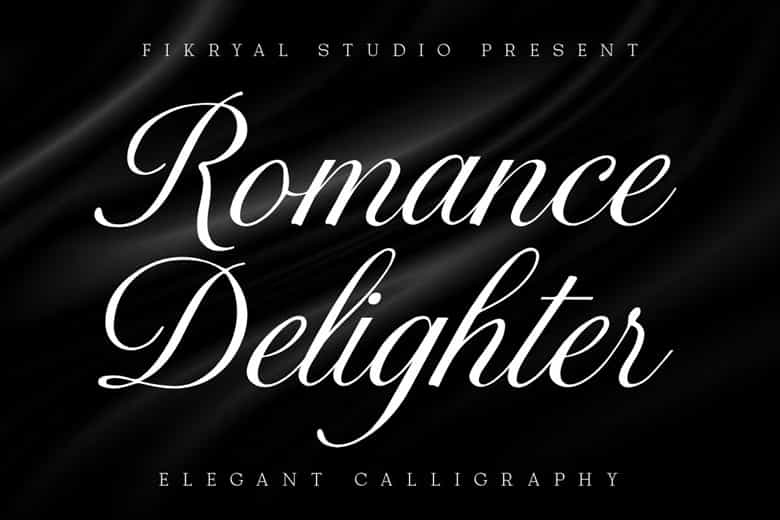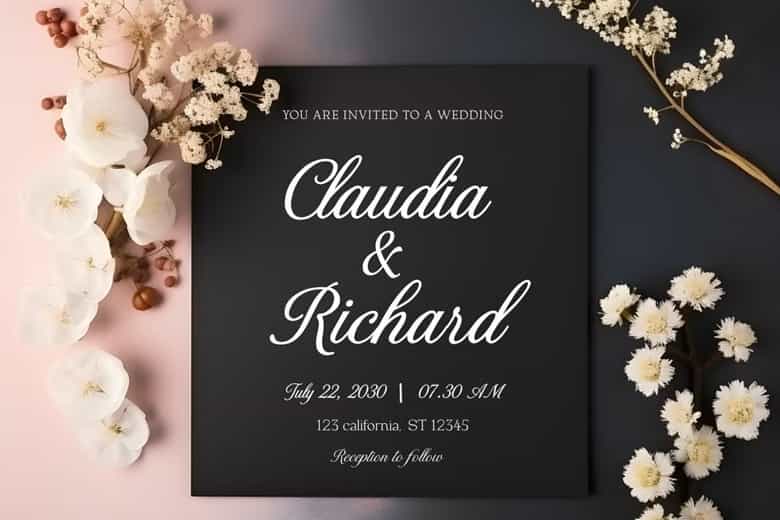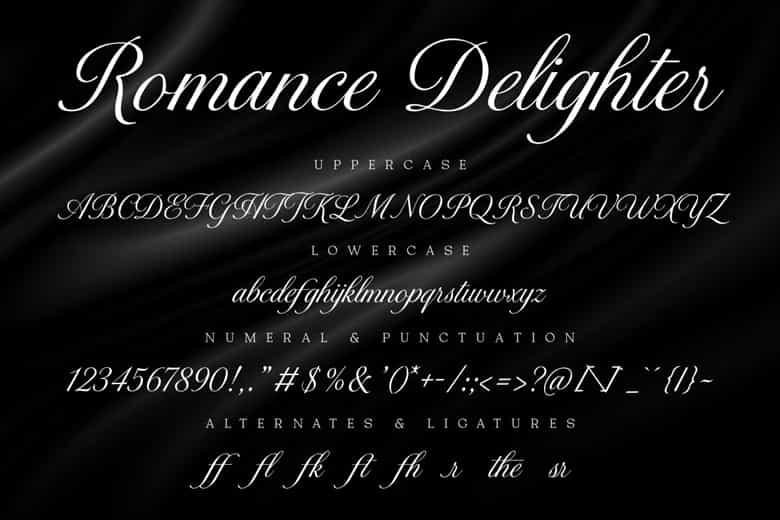
Romance Delighter is an exclusively crafted calligraphy script font that has an exciting and stunning look for any design task. This font comes in two versions: Regular and Bold, The font is relatively elegant and fluid, paying attention to the details of curves when used. Romance Delighter is a seductive and luxury application that allows the user to give a pinch of love to each typed message.